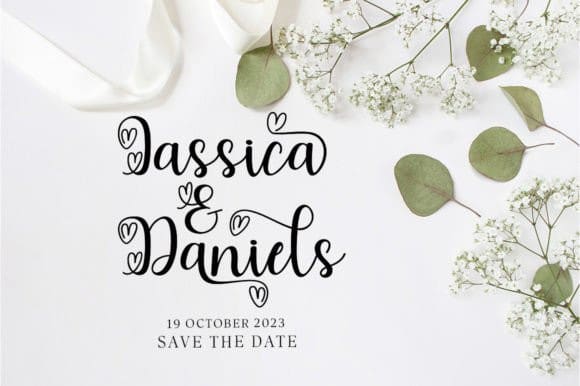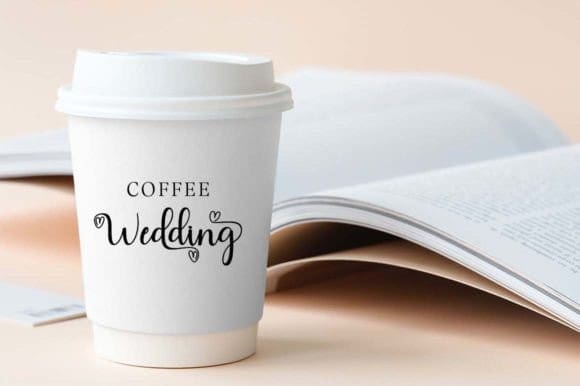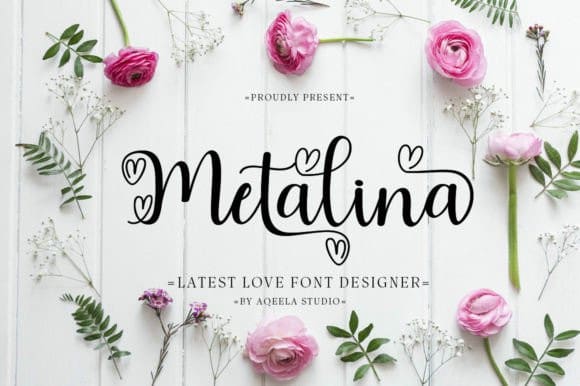
Metalina Script Font
Metalina Script Font is a beautiful and light handwritten font with a unique feel and a stunning impact. It will add a luxury spark to any design project that you wish to create!